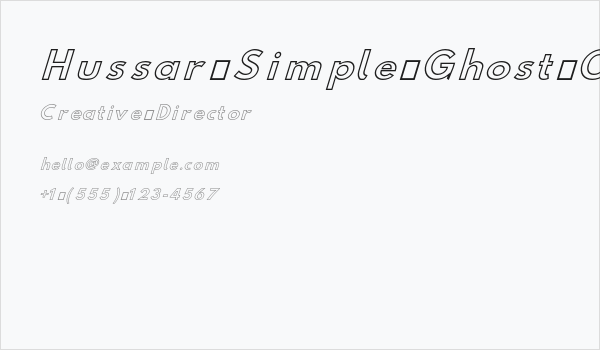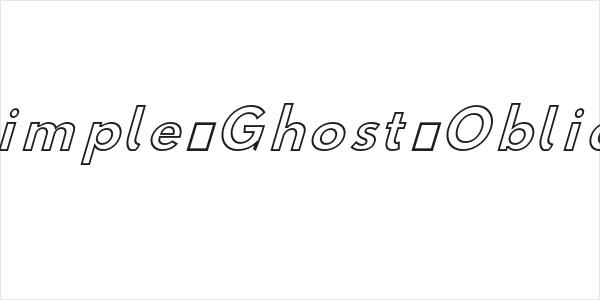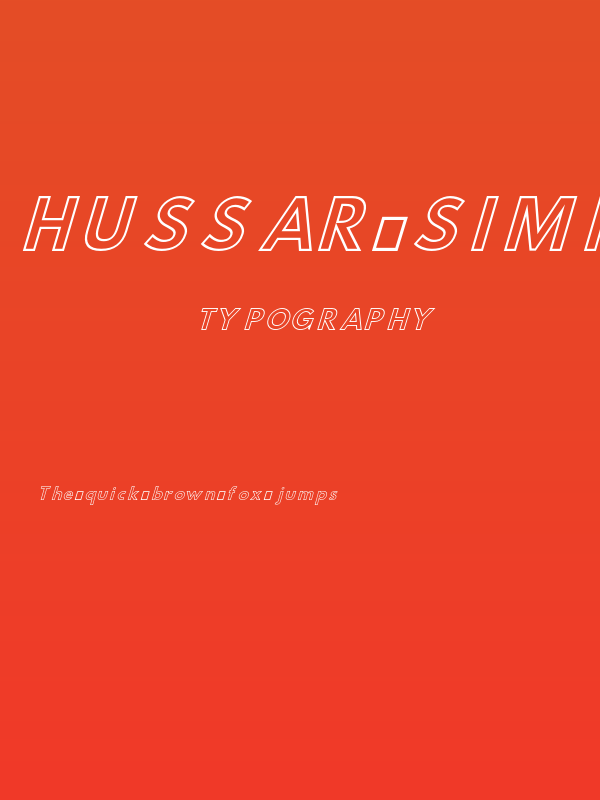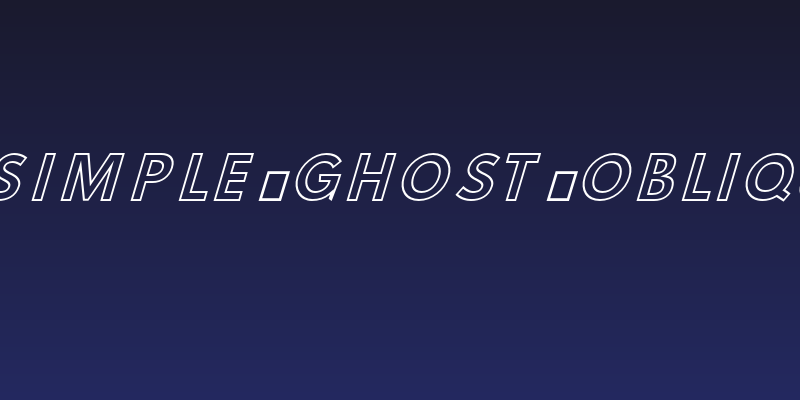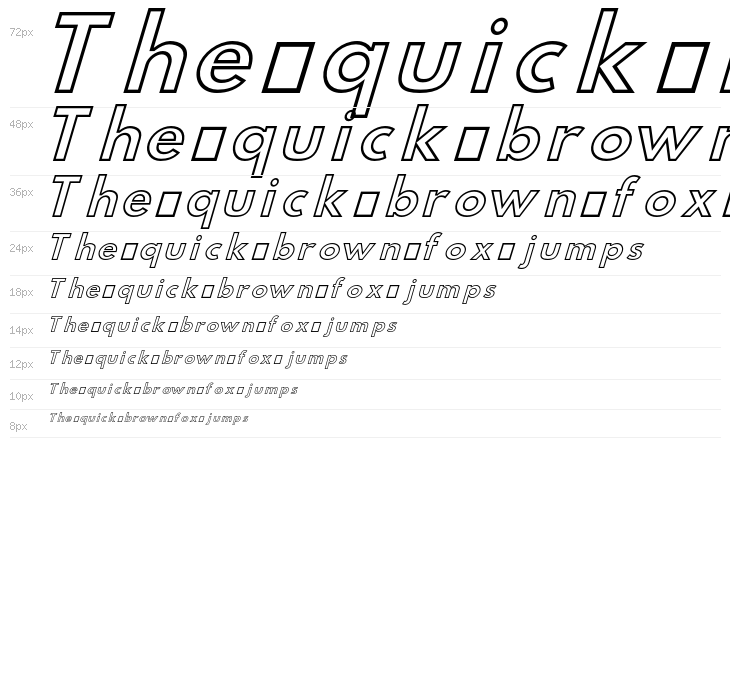
Hussar Simple Ghost Oblique Three Font
Hussar Simple Ghost Oblique Three Description
This font features a modern, oblique style with a clean and minimalist design. The characters are outlined, giving them a ghostly appearance that adds a unique and contemporary touch. The uppercase and lowercase letters maintain a consistent slant, enhancing the dynamic and forward-moving feel of the typeface. The numerals and special characters are designed to match the overall aesthetic, ensuring uniformity across all text. The font's open structure and clear lines make it highly legible, even at smaller sizes, while the outlined style provides a distinctive look that stands out in various design contexts.
| Use Case | Headlines, Logos, Digital Media |
| Proposed Projects | Ideal for modern branding, advertising, digital media, and editorial design projects. |